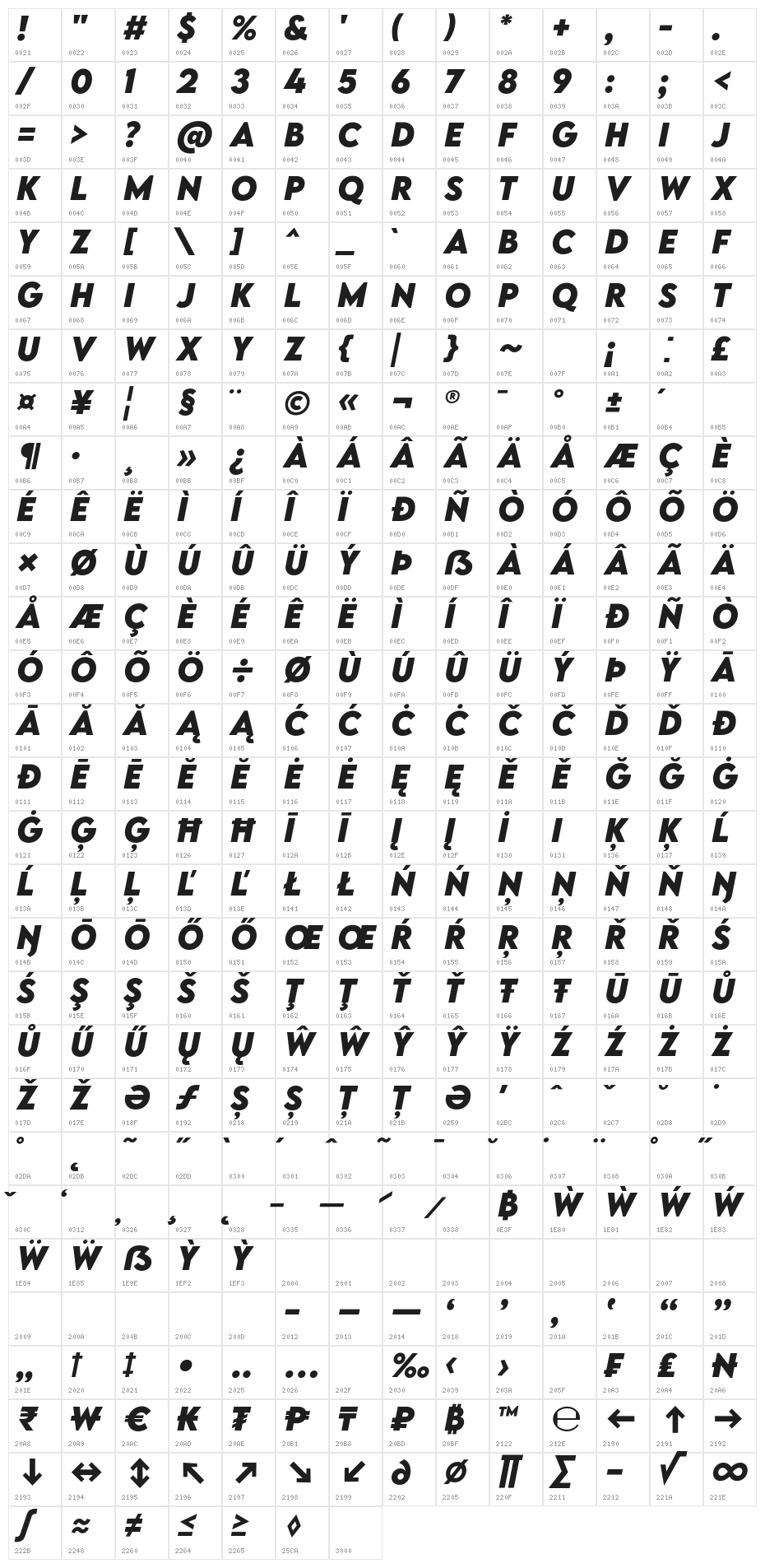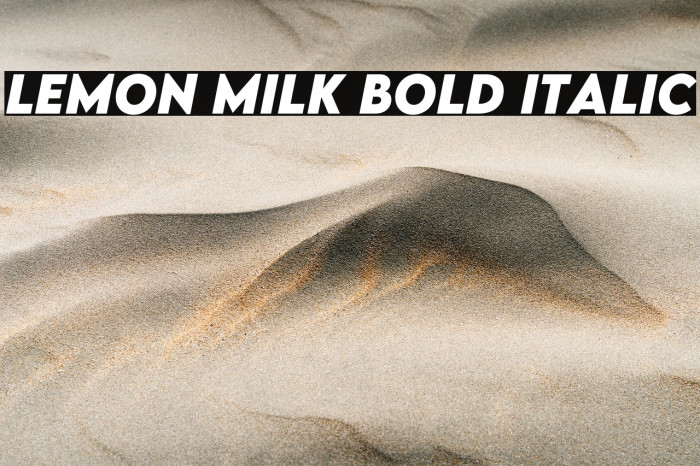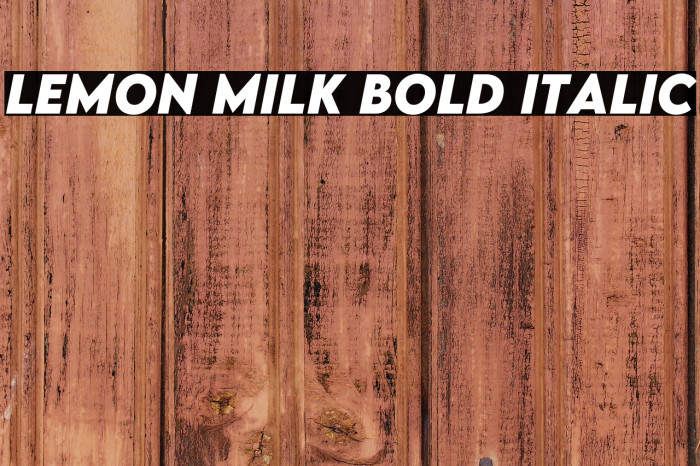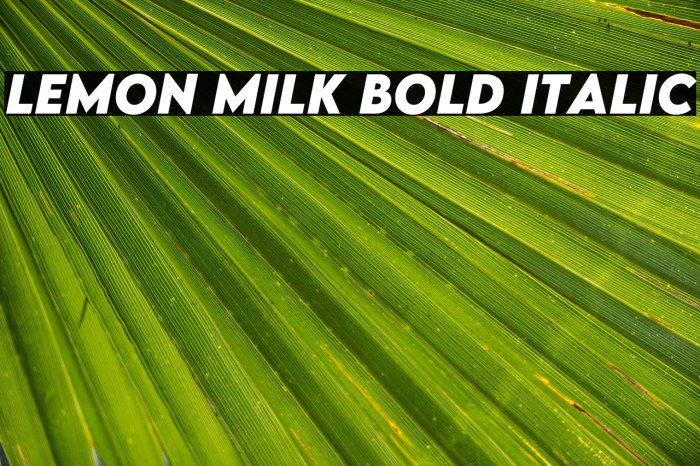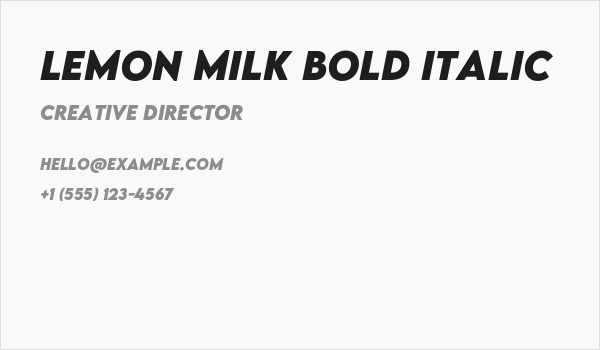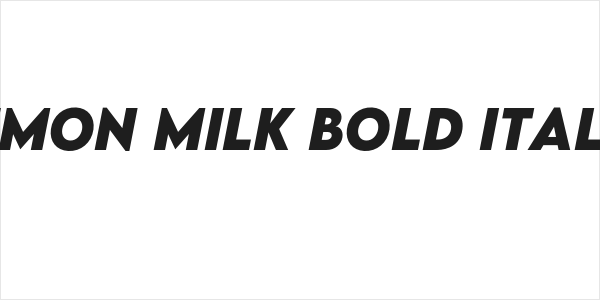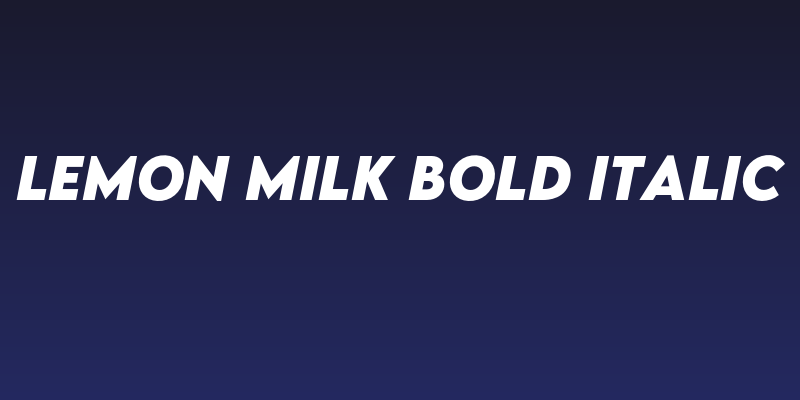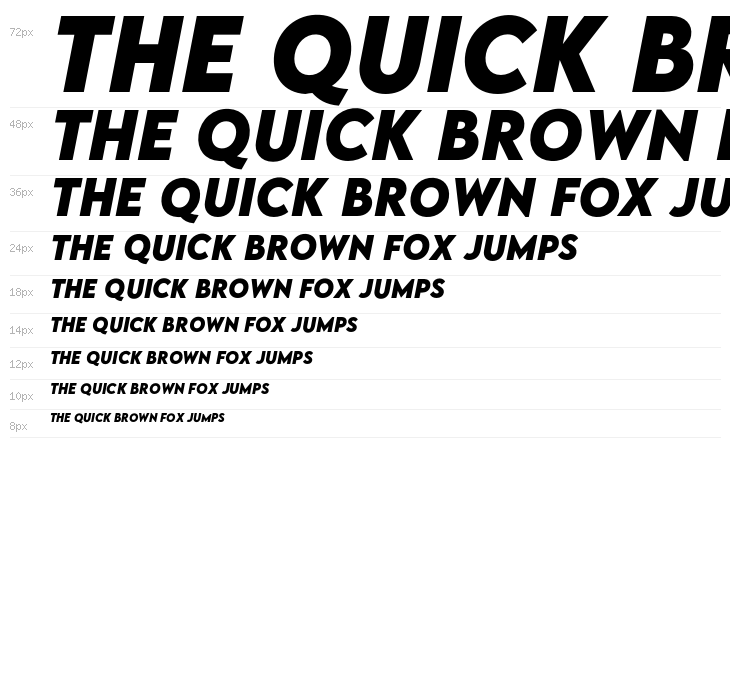
LEMON MILK Bold Italic Font
LEMON MILK Bold Italic Description
This font features a bold and italicized style, characterized by its strong geometric shapes and clean lines. The uppercase and lowercase letters maintain a consistent width, providing a uniform appearance. The numbers and special characters are designed to match the boldness of the letters, ensuring a cohesive look across all elements. The italic slant adds a dynamic and modern touch, making it suitable for attention-grabbing headlines and impactful designs. The overall aesthetic is contemporary, with a focus on clarity and readability, making it versatile for various design applications.
| Proposed Projects | Ideal for branding, advertising, posters, and modern web design. |